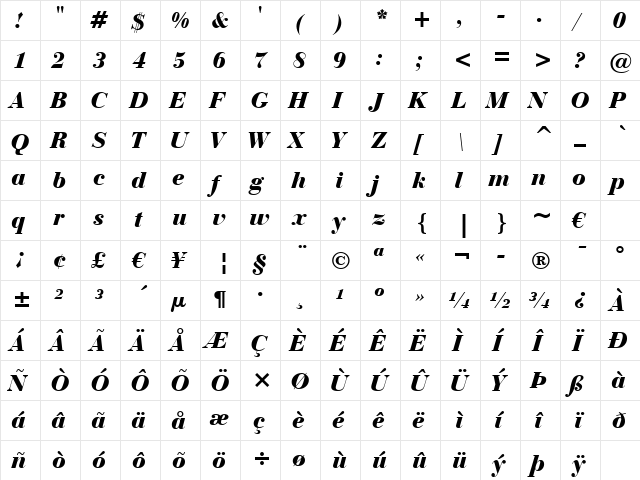
BauerBodni Blk BT Black Italic
Design Context for BauerBodni Blk BT Typeface
BauerBodni Blk BT is a composed and adaptable typeface that performs quietly and consistently across a wide range of design contexts. The slanted form adds forward momentum and visual energy.
Pro Tip: Try BauerBodni Blk BT for annotation and caption copy alongside an upright companion — the contrast in angle creates a dynamic but ordered typographic system.